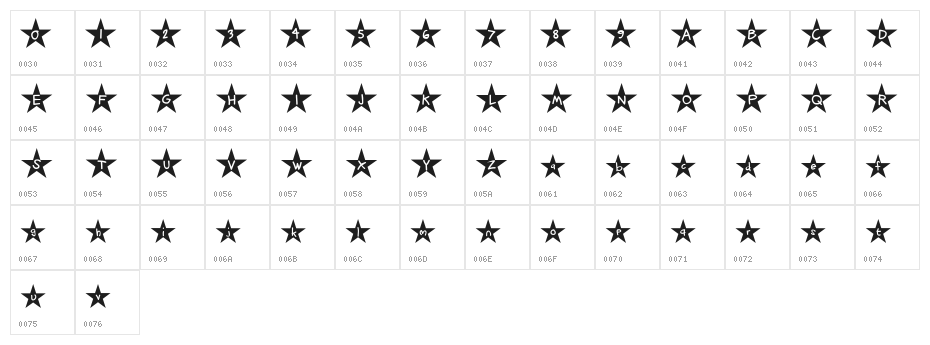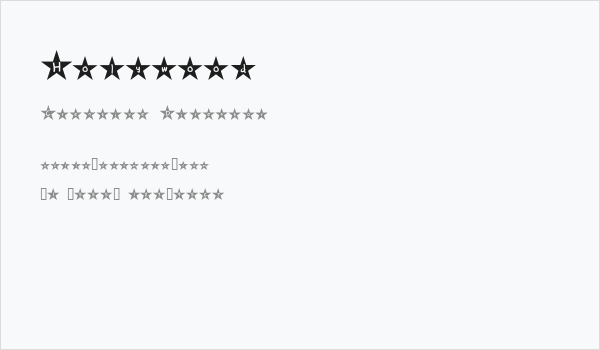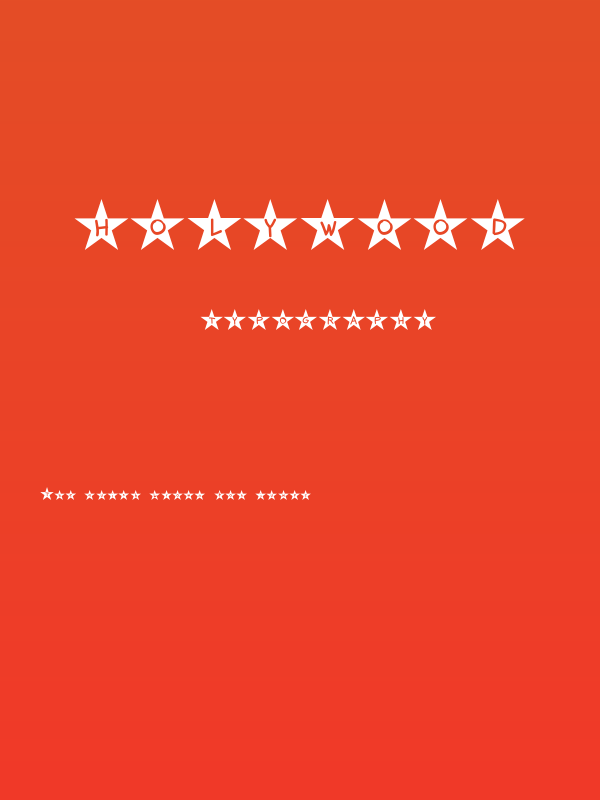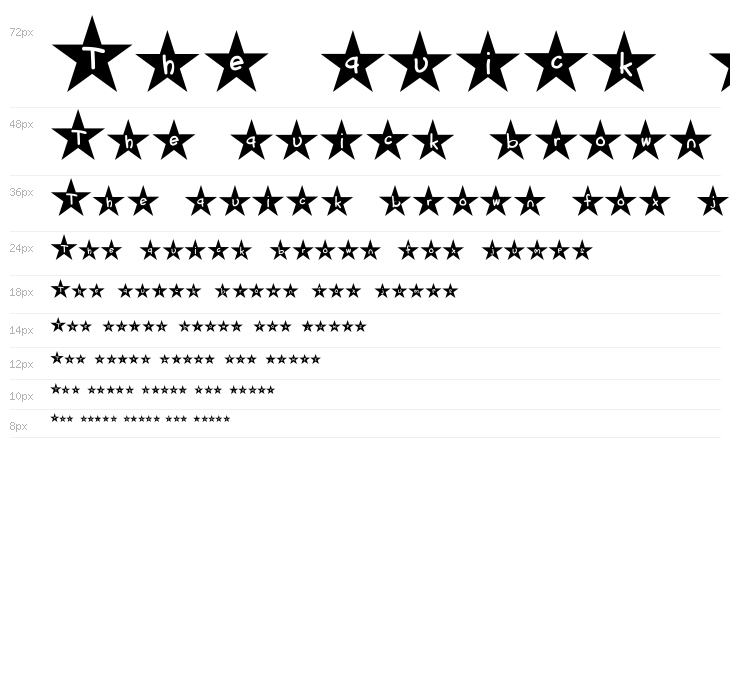
Holywood Font
Holywood Description
This decorative font features characters enclosed within star shapes, creating a bold and eye-catching design. Each letter and number is centered within a five-pointed star, giving it a unique and playful appearance. The font maintains a consistent style across uppercase, lowercase, and numeric characters, ensuring uniformity. The special characters are presented within square frames, adding a distinct contrast to the star-enclosed letters. This font is ideal for projects that require a standout, thematic look, such as party invitations, posters, or any design that aims to capture attention with a fun and whimsical style.
HOLYWOOD UPPERCASE
HOLYWOOD LOWERCASE
HOLYWOOD OTHER CHARS